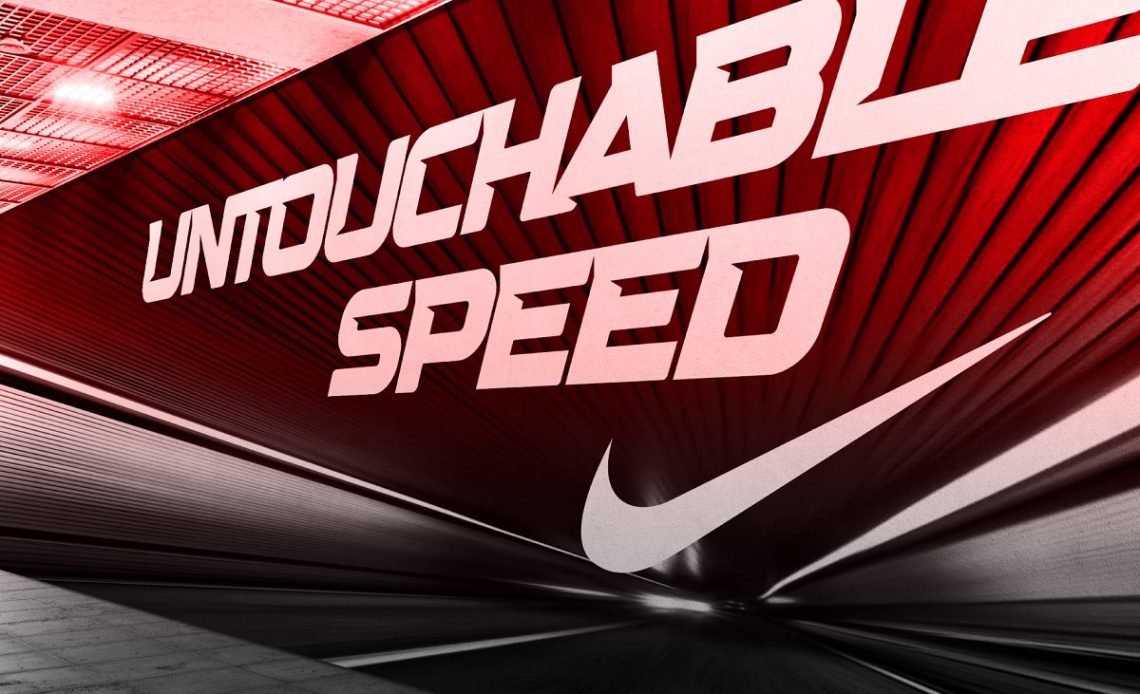
Introducing the Headline Speed Font - the perfect choice for those seeking the best fonts for printed text. Created by Yehor Lisnyi, this sans-serif font family is not just bold, but also possesses sharp corners and a slight slope that adds a dynamic effect to any text.
The Speed font is truly unique, boasting an irresistible charm and easy-to-read visual appeal. It is an ideal choice for headlines, especially for sports events, automotive posters, logos, and monogram designs. With its ability to catch the eye and hold attention, this font is sure to elevate your designs and make them stand out from the rest.
Not only is the Headline Speed Font aesthetically pleasing, but it also includes basic punctuation, uppercase English letters, numbers, and some ligatures. This means that you can use it to create a wide range of designs without worrying about any limitations.